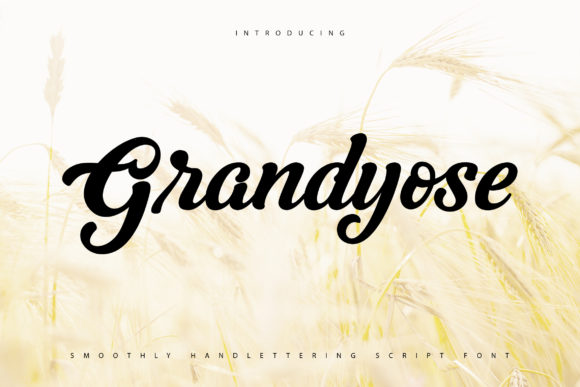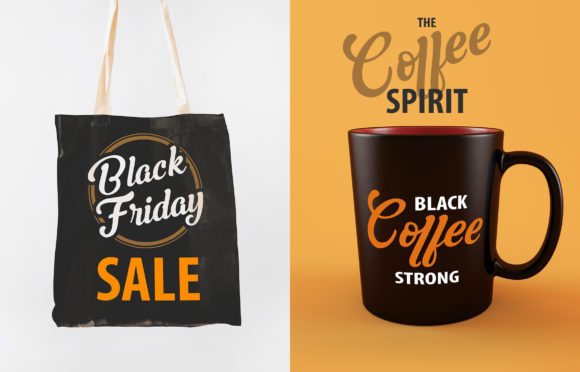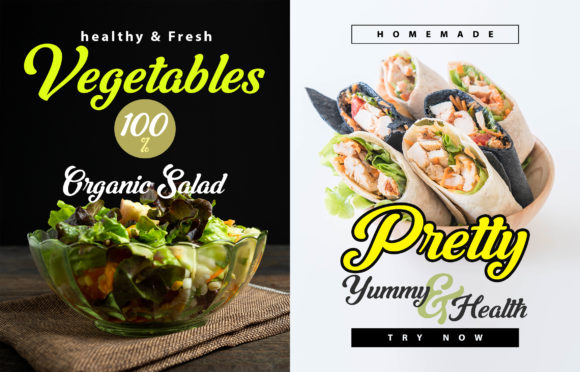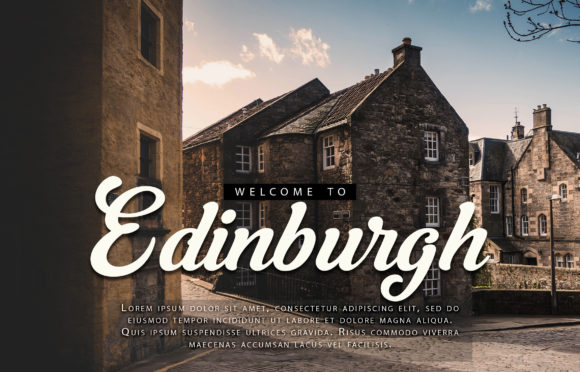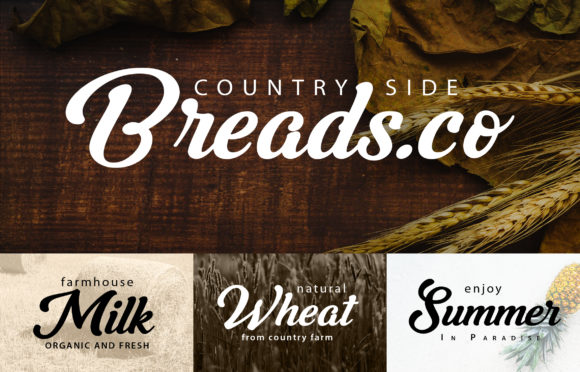
Grandiose Font
About Grandiose Font
Grandiose is a stylish handwritten font which will look beautiful on invitations, greeting cards, branding materials, business cards, quotes, posters, and more!
This font is PUA encoded which means you can access all of the beautiful glyphs and swashes with ease! It also features a wealth of special features including alternate glyphs
and ligatures.